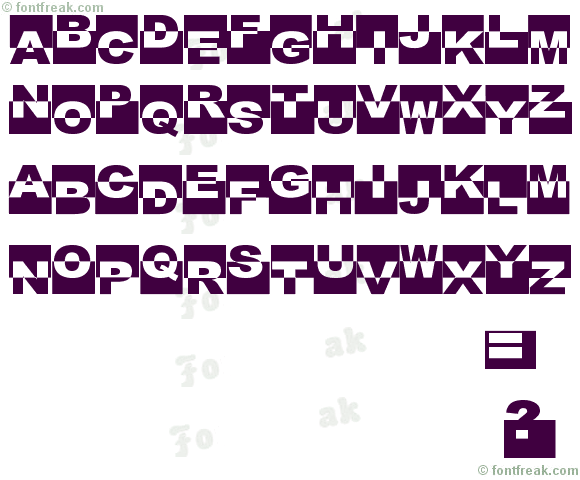
FE-BlackBox
About FE-BlackBox
The FE-BlackBox font by Font Environment is a striking display typeface that combines contemporary design with bold aesthetics, perfect for various creative applications. This font embodies a modern sans-serif style characterized by its unique geometric forms and sharp edges, which create a strong visual impact. The stroke weight is consistent, providing a uniform appearance that enhances legibility while maintaining a distinctive flair. The spacing between letters is thoughtfully designed to allow for easy reading, making it an ideal choice for eye-catching headlines and titles.
FE-BlackBox excels in several specific use cases, making it a versatile addition to any designer's toolkit. It works wonderfully for movie posters, where its bold presence can capture attention and convey the film's tone. Additionally, it is well-suited for branding projects, allowing small business owners to create memorable logos that stand out in a crowded market. The font also shines in advertising materials, such as flyers and banners, where clarity and impact are essential. For content creators, FE-BlackBox can add a modern touch to social media graphics, ensuring that posts are both engaging and visually appealing.
In conclusion, FE-BlackBox stands out due to its bold design and versatility, offering a modern edge that can elevate any project. Its unique style and accessibility make it a must-have for anyone looking to make a statement in their typography.